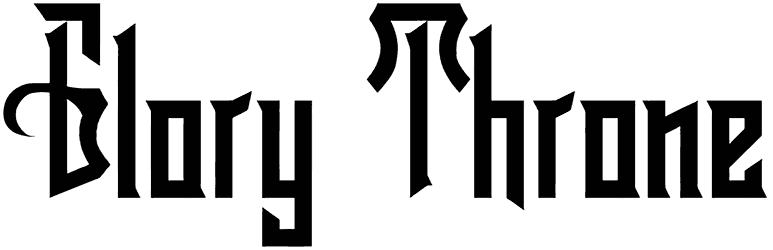
Glory Throne Font
Setting a historical and strong face on the words of your project will make it different from other designs. This old English font can do it and add a charming vibe to your idea. Almost all characters of this Gothic font are available. So, you can count on the Glory Throne font to make your design level up and give a noble form to your final draft.